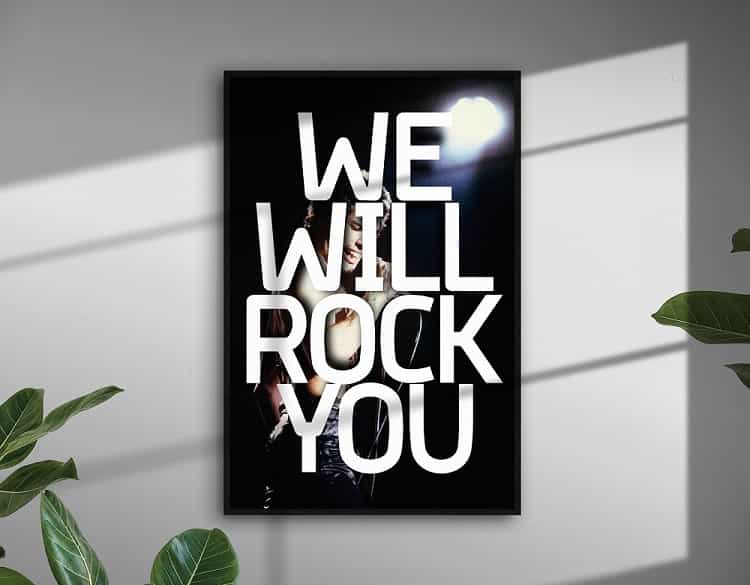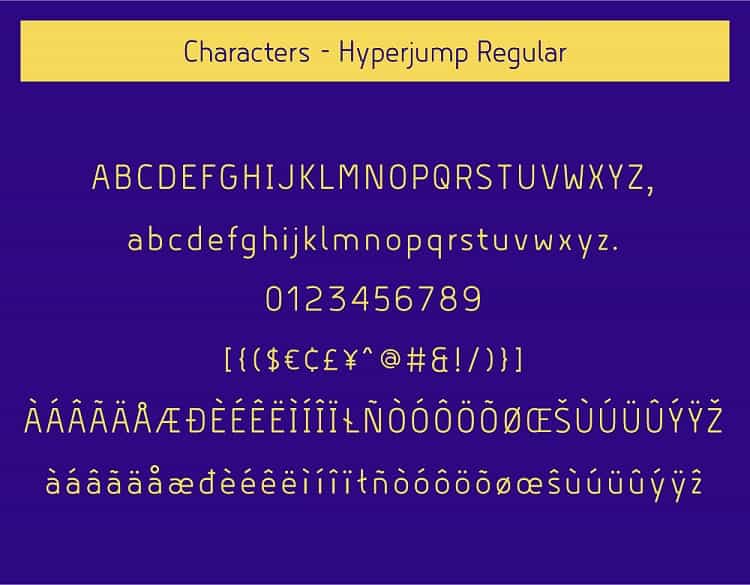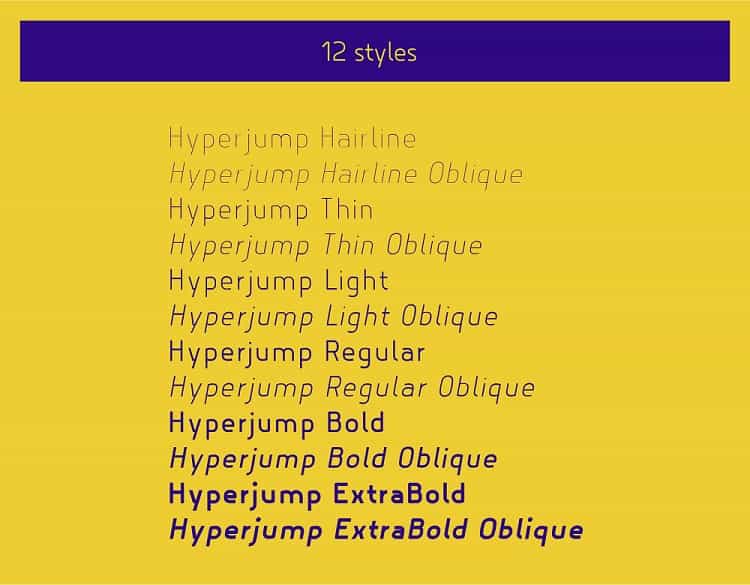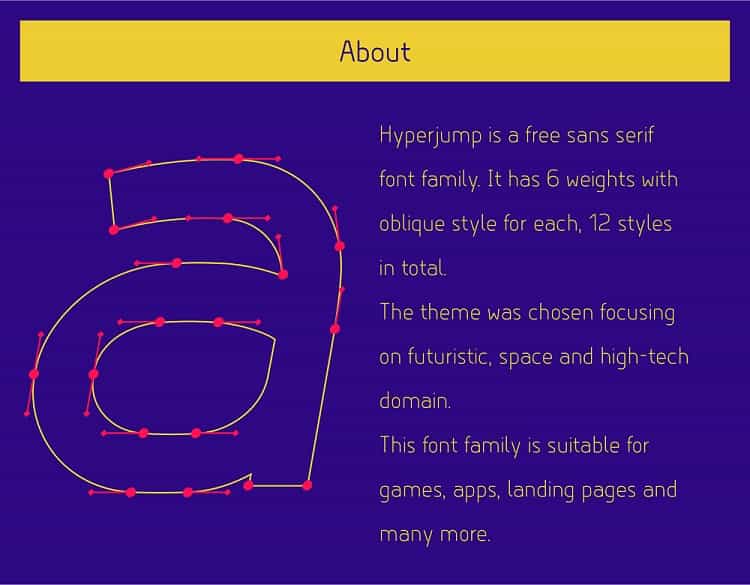
Hyperjump is a contemporary and modern sans serif font family. It comes with 6 weights, ranging that range from Hairline to ExtraBold and corresponding Obliques. The design was based on the futuristic, space and hi-tech domain. Hyperjump is a suitable typeface for web, games and other modern projects.